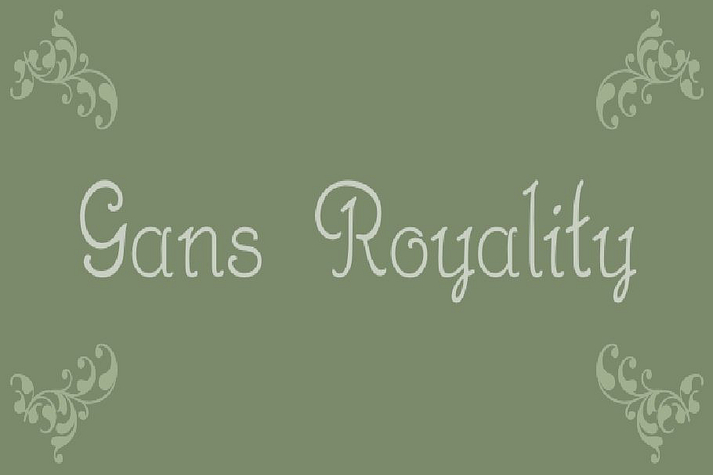
Gans Royality OT
Gans Royality OT is a script font family. This typeface has three styles and was published by Intellecta Design.
Digitization of Royalty (Gans), which in turn is a version of Isolde ( at Wagner & Schmidt [Reichardt] 1914). three fonts in the pack